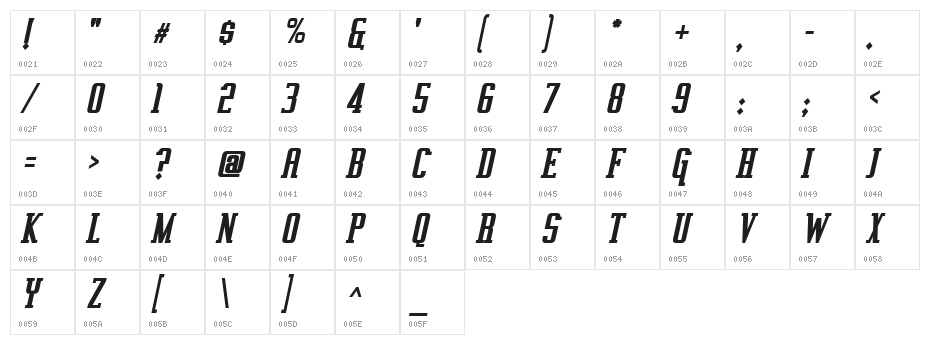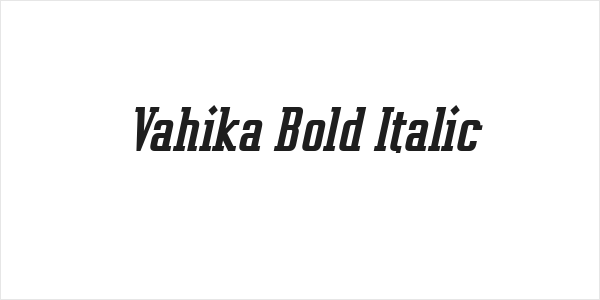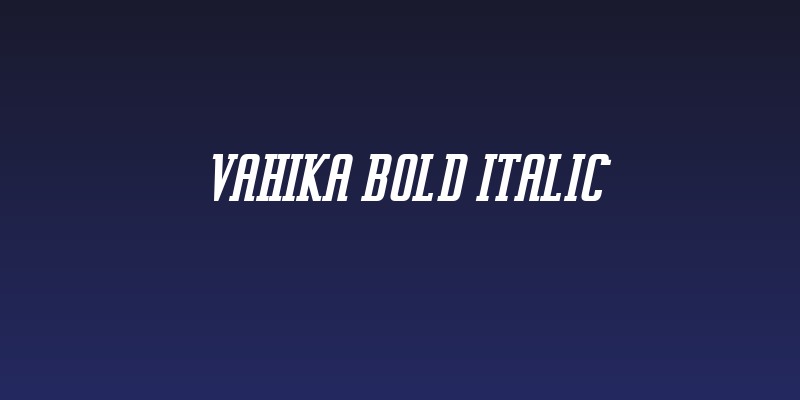
Vahika Bold Italic Font
Vahika Bold Italic Description
This font features a bold and italicized style with a strong, dynamic presence. The characters are slightly condensed, giving it a compact and efficient look. The strokes are thick and consistent, providing a sense of stability and strength. The italic slant adds a sense of motion and urgency, making it suitable for attention-grabbing headlines. The uppercase letters are tall and commanding, while the lowercase letters maintain readability with a similar boldness. The numerals are clear and robust, matching the overall aesthetic. Special characters are designed with the same bold and italic characteristics, ensuring uniformity across all glyphs.
Proposed ProjectsIdeal for sports branding, dynamic posters, and impactful headlines.